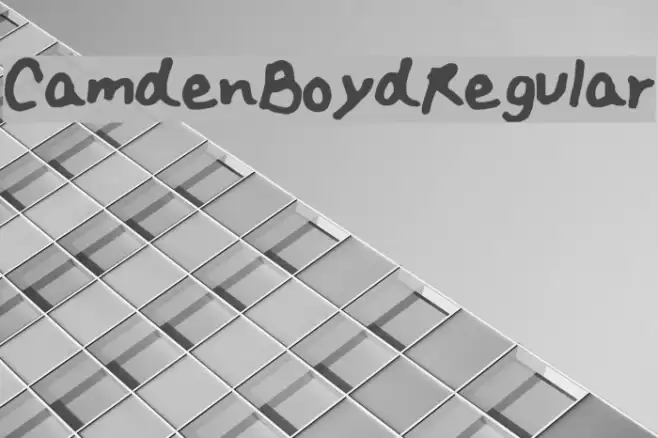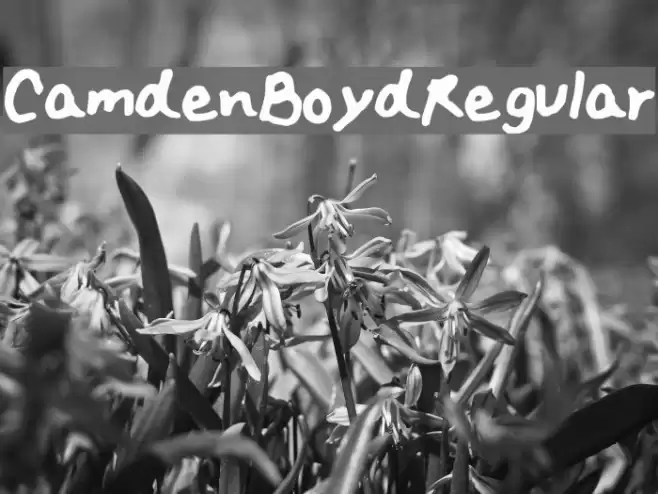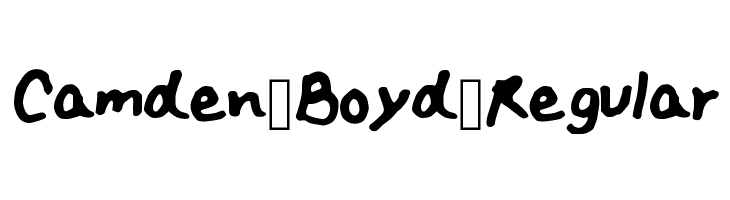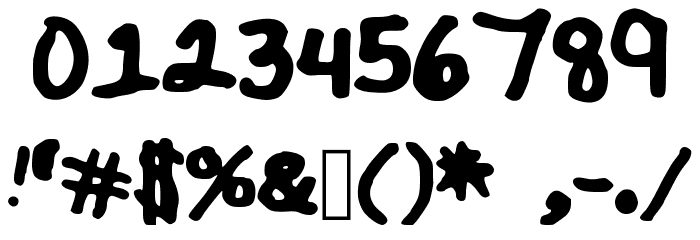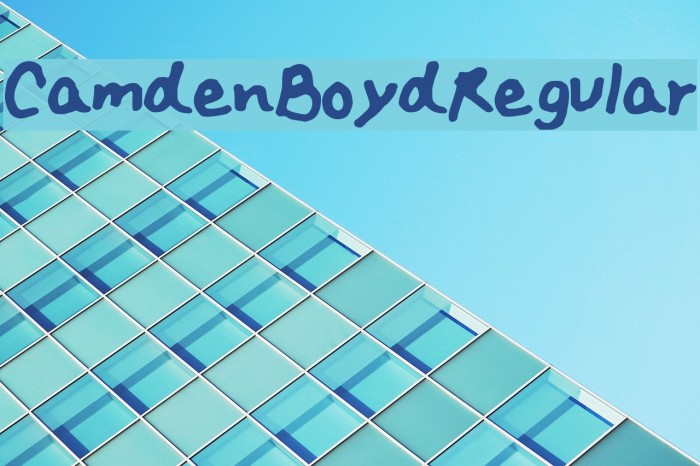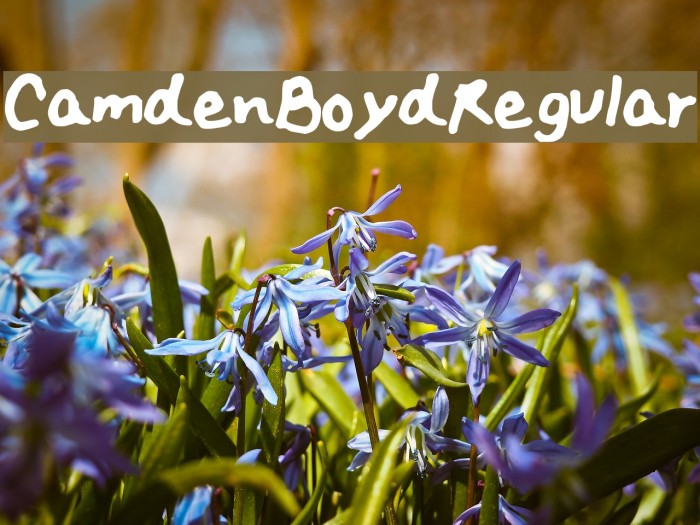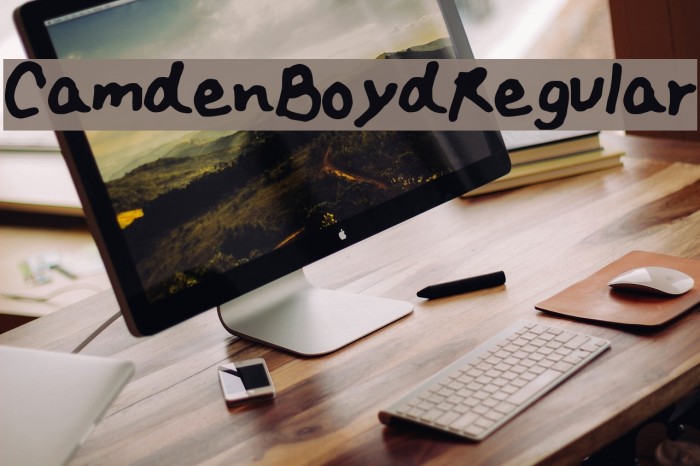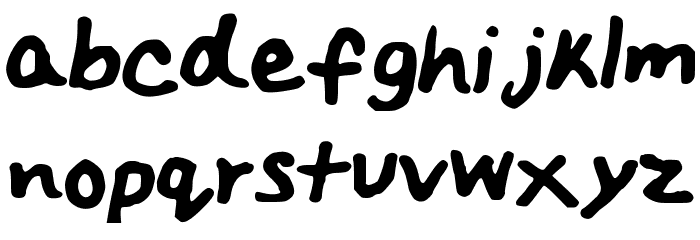
Camden_Boyd_Regular Font
Camden_Boyd_Regular Description
This font exudes a playful and informal style, characterized by its hand-drawn appearance. The letters are bold and slightly irregular, giving them a lively and dynamic feel. The strokes are thick and consistent, creating a strong visual impact. The uppercase and lowercase letters maintain a cohesive look, while the numbers and special characters complement the overall design. This font's organic and casual vibe makes it suitable for projects that require a personal touch.
A bold, hand-drawn font with a playful and informal style from Uncategorized fonts.
- Proposed Projects: Ideal for children's books, casual invitations, posters, and creative branding projects.
- Overall Style: Casual and Playful